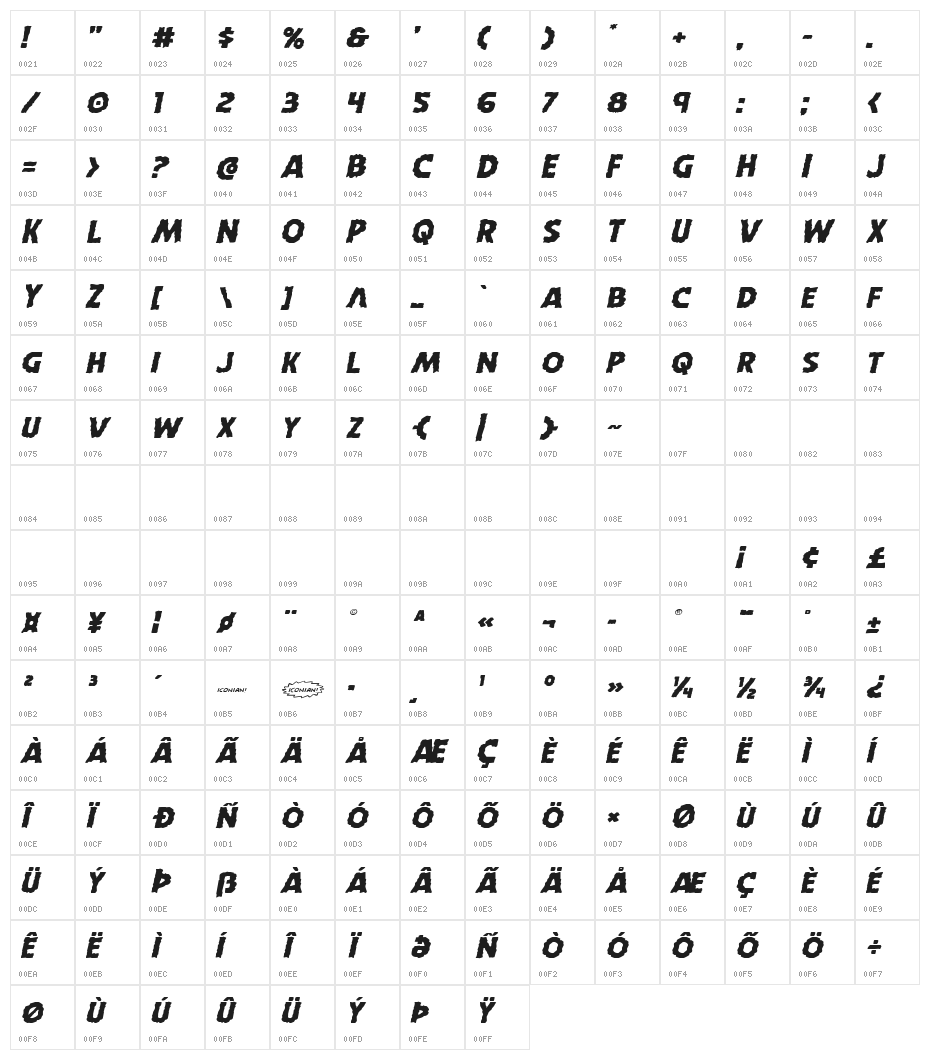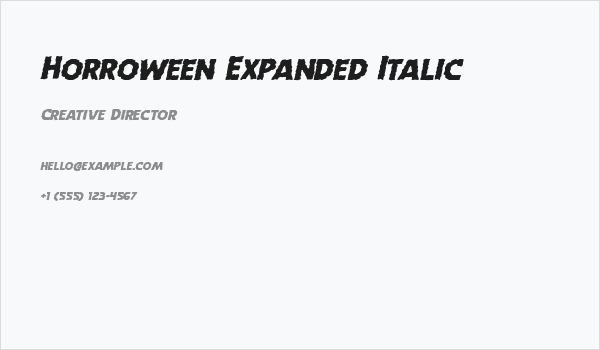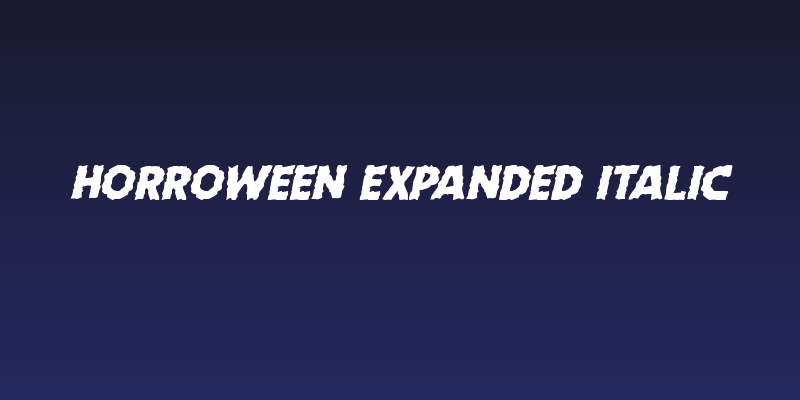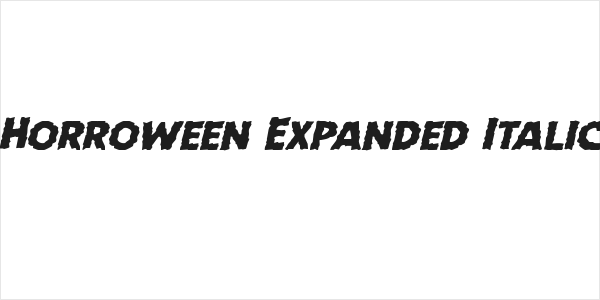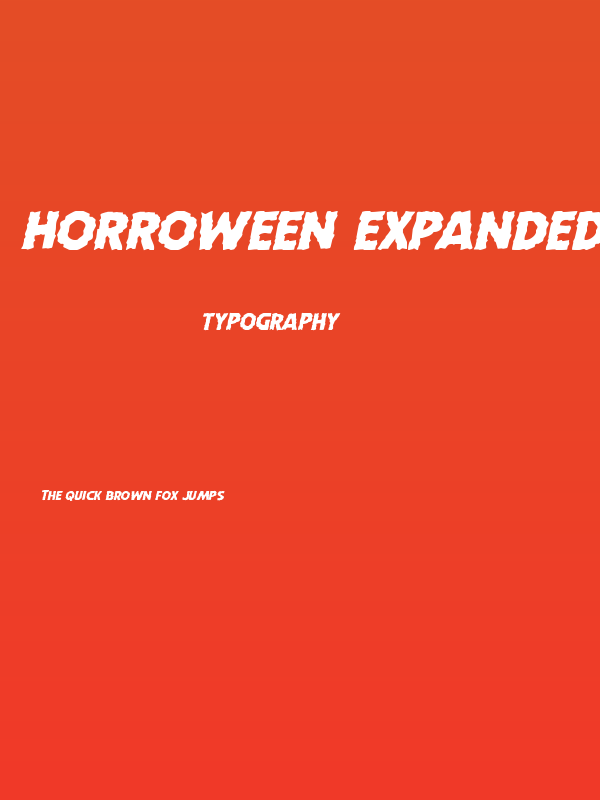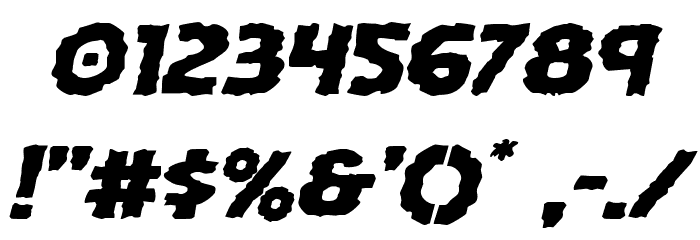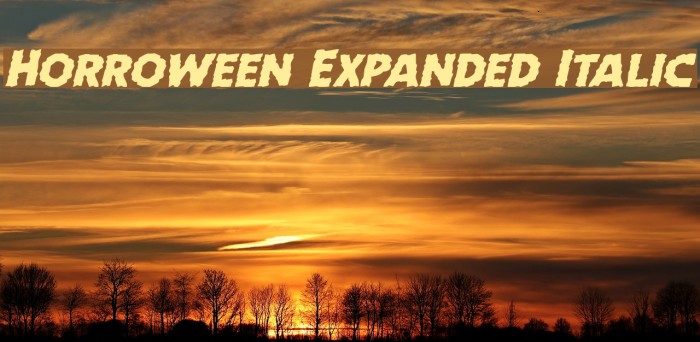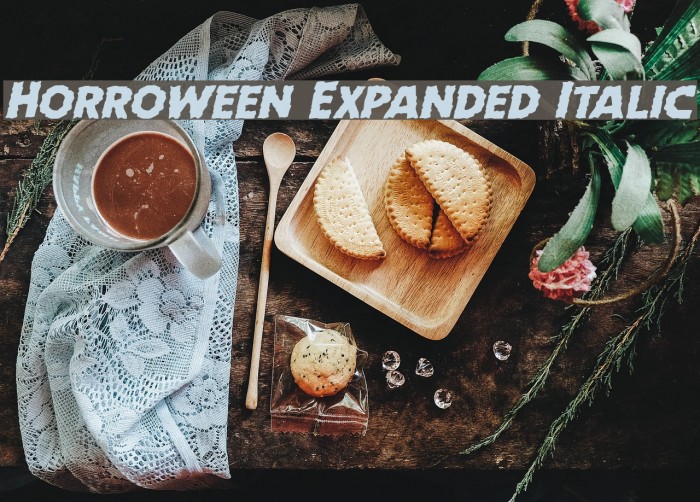
Horroween Expanded Italic Font
Horroween Expanded Italic Description
This font features a bold and jagged style, reminiscent of classic horror themes. The letters are heavily stylized with rough, uneven edges that create a sense of movement and urgency. The italic slant adds to the dynamic feel, making it perfect for capturing attention. The expanded width gives each character ample space, enhancing readability while maintaining a dramatic appearance. This font is ideal for projects that require a spooky or eerie atmosphere, such as Halloween-themed designs, horror movie posters, or haunted house advertisements.
| Proposed Projects | Ideal for Halloween-themed designs, horror movie posters, and haunted house advertisements. |